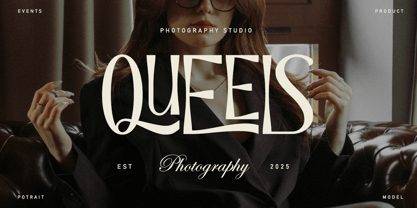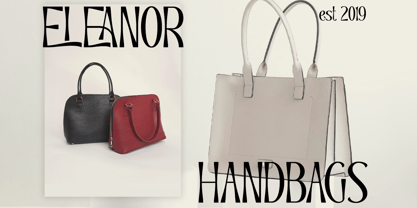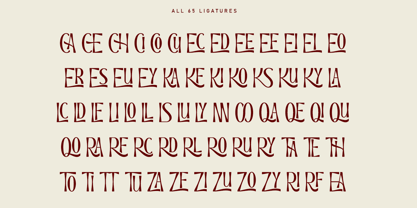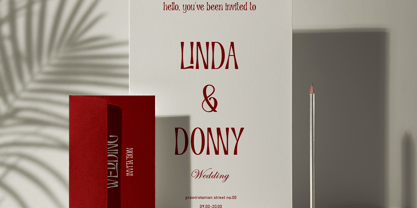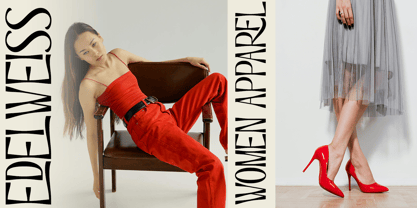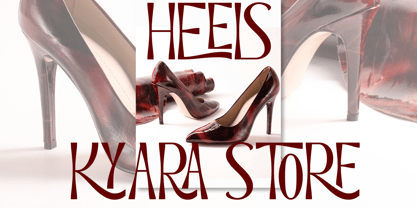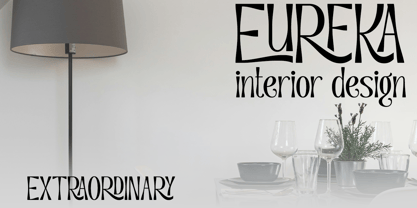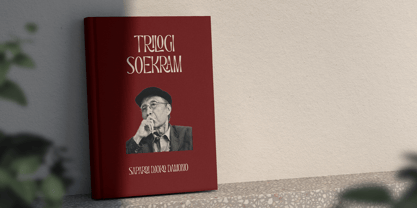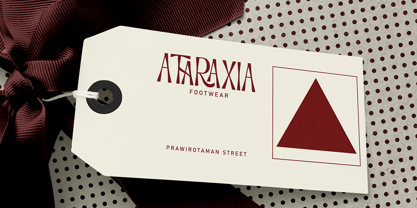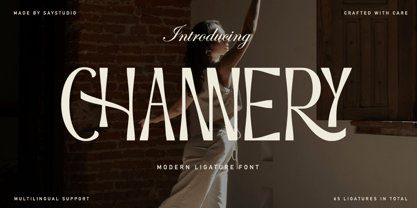
Channery
by Say Studio
The Channery Font Family was designed by Mussyayin and published by Say Studio. Channery contains 1 styles. More about this family
Channery is a modern ligatures fonts crafted with meticulous attention to detail, Channery over 65 ligatures that effortlessly blend characters, lending your text a fluidity reminiscent of the tower's iron lattice. Its serifs are reminiscent of the Tower's stately columns, offering a harmonious balance between classic and contemporary design. This font is not only a homage to the iconic landmark but also an embodiment of its enduring charm, perfect for bringing a touch of refined grandeur to a wide range of creative projects. includes uppercase letters, numerals, a large range of punctuation. Serif font with modern stylish style. Created for poster, web design, branding, illustrations, badges and some other works.
- 65 Character Ligatures
Designers: Mussyayin
Foundry: Say Studio